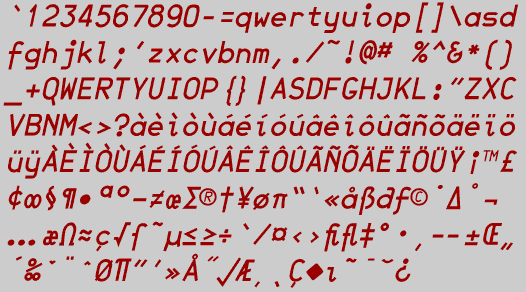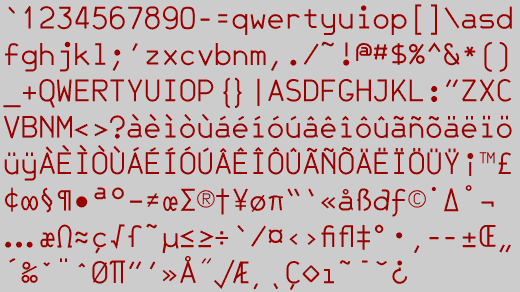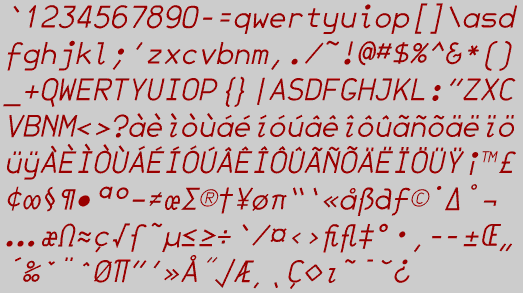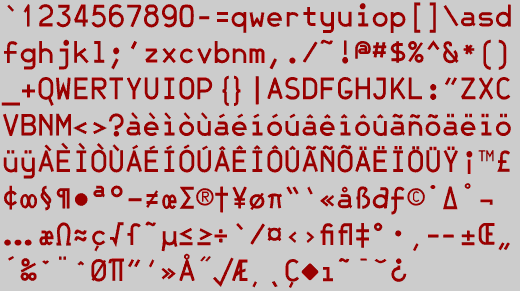
It is easy to dislike monospaced typefaces. Because they force all letters to have the same width, they are inevitably ugly (though we have gotten so used to them we usually do not notice this ugliness). However, they pose an interesting challenge to the type designer.
JetJaneMono is a very large family of sans-serif faces which are mono-spaced, as are typefaces used in typewriters and cheap computer printers. There are three weights in the extended family: Thin, Plain, and Bold. In addition there is an italics version in the same weights which is close to the "book" version, with some differences in lower-case letters and symbols. Finally, there is an all-caps version in which the lower-case letters have been replaced with scaled versions of the upper-case letters.
JetJane is meant to give the look and feel of the typefaces used in dot-matrix printers, though it is not modeled on any particular one. It is best used at lower point sizes, such as 10, 11, or 12.